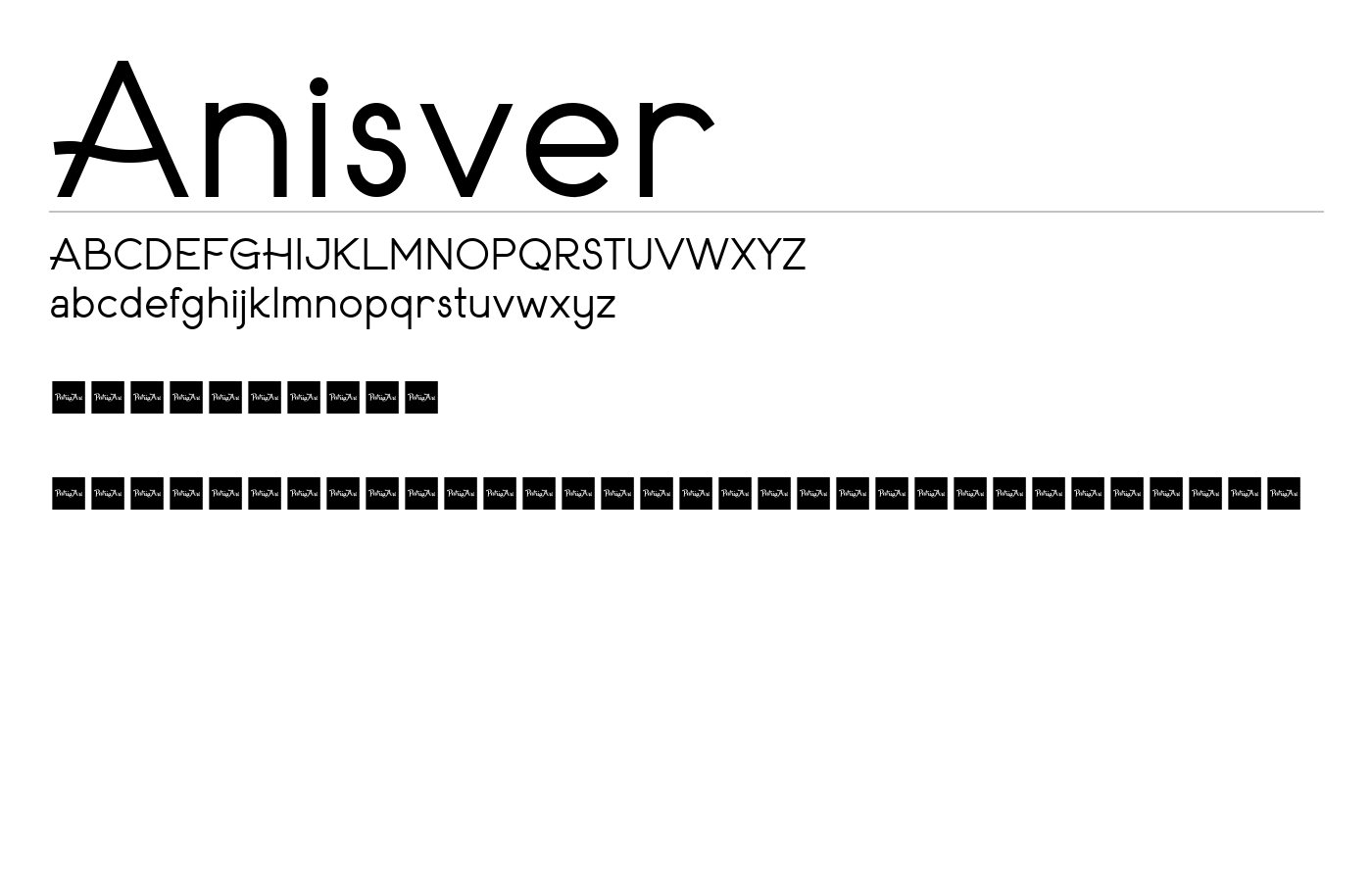
Anisver is a sleek, modern sans serif font with a light to regular weight and clean, geometric strokes that create an open, airy feel. Its distinctive letterforms, such as the single-story ‘a’ and unique ‘A’ crossbar, add a touch of personality while maintaining clarity and elegance. Ideal for contemporary branding, editorial design, and digital interfaces, Anisver communicates sophistication and approachability with its minimal yet refined style.
Anisver Font
| Designer | Patria Ari Wijonarko |